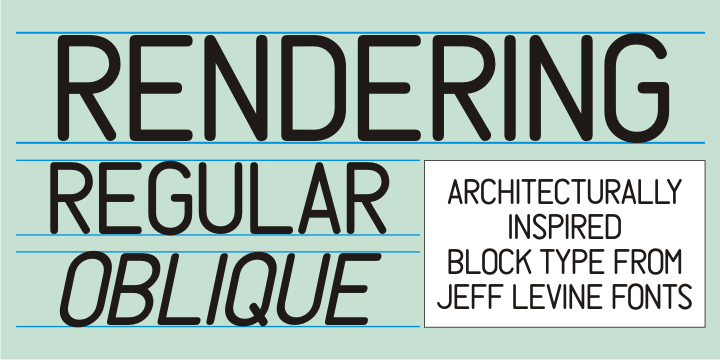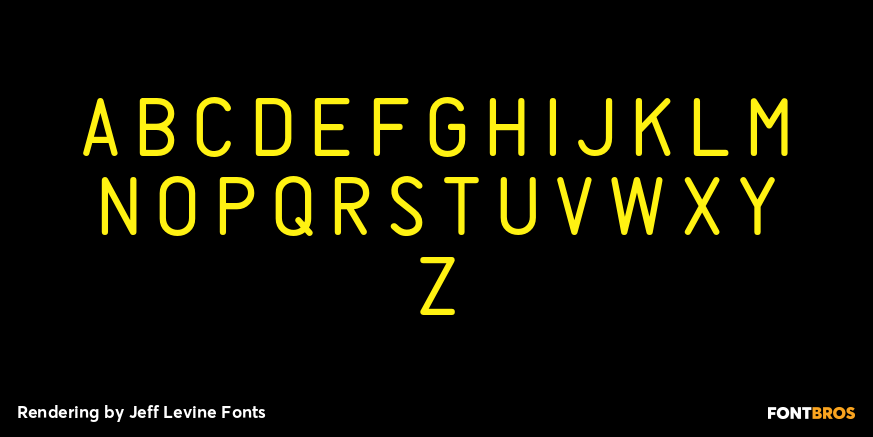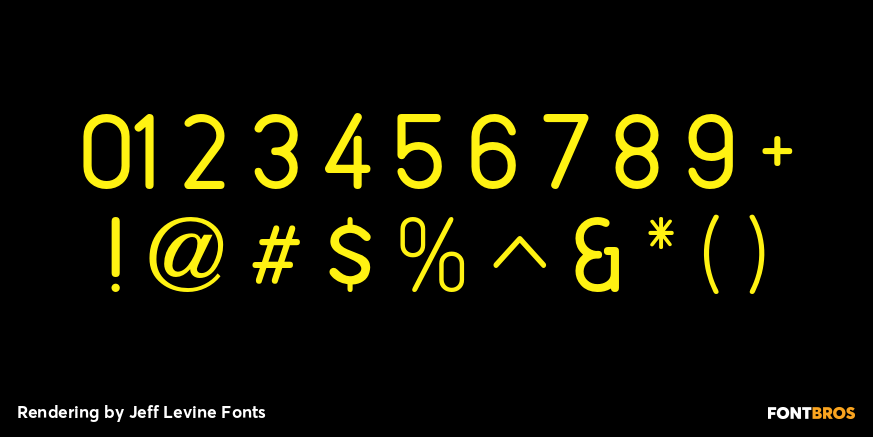
Rendering
Rendering JNL was inspired by European-style plastic stencils which emulate the block lettering with rounded ends used for years by architectural draftspersons.